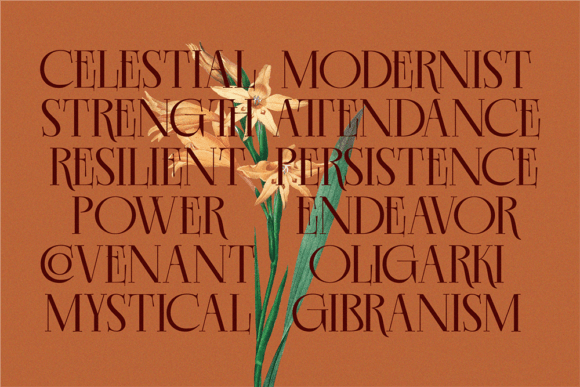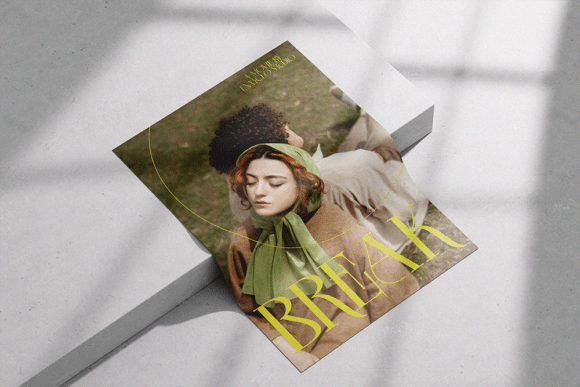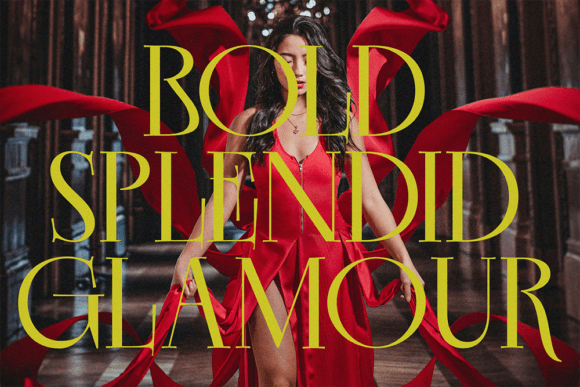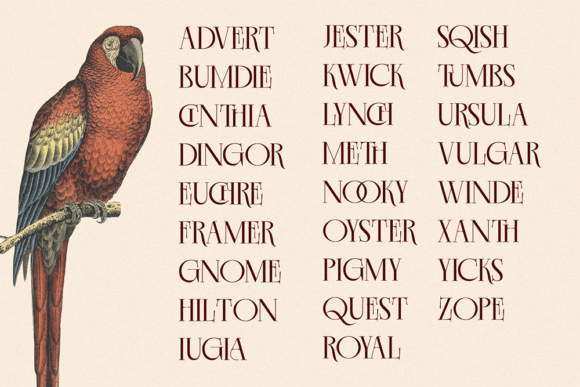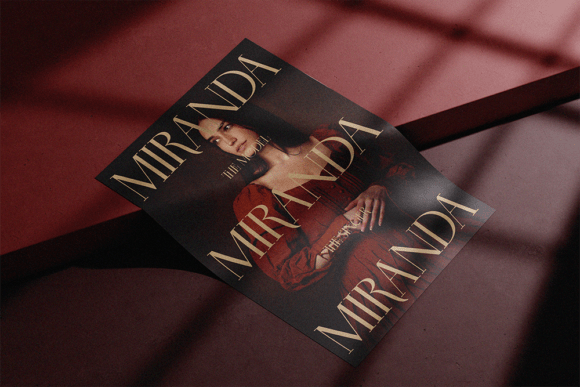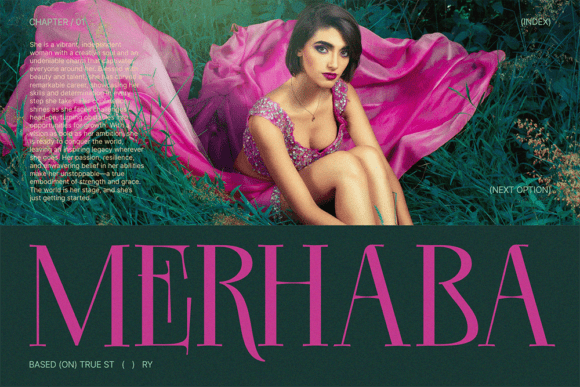
Experience EKGIERO: The Ultimate Serif Typeface for Elegant Branding
In the world of typography, a well-crafted font can make all the difference in elevating a brand’s identity to new heights. Introducing EKGIERO, a stunning serif typeface designed to infuse unforgettable elegance into your brand. With its meticulous attention to detail and state-of-the-art design, EKGIERO is the perfect choice for fashion, beauty, and aesthetics enthusiasts.
Unparalleled Elegance and Versatility
A Comprehensive Character Set
EKGIERO boasts a full suite of uppercase and lowercase letters, numerals, punctuation, symbols, ligatures, and alternates. This extensive character set provides designers with the flexibility to create spectacular typography that is truly unique in its class. Whether you’re working on high-fashion branding, cosmetic and skincare packaging, or luxe editorial designs, EKGIERO has got you covered.
Ideal Applications for EKGIERO
EKGIERO’s aesthetic appeal shines in various applications, including:
- High-fashion branding: Elevate your fashion brand with EKGIERO’s sophisticated and elegant typography.
- Cosmetic and skincare packaging: Make a lasting impression with EKGIERO’s luxurious and refined design.
- Boutique branding: Create a unique and memorable brand identity with EKGIERO’s distinctive serif typeface.
- Luxe editorial designs: Add a touch of sophistication to your editorial projects with EKGIERO’s elegant typography.
- Logos and identity systems: Establish a strong brand presence with EKGIERO’s striking and memorable design.
- Packaging: Elevate your packaging design with EKGIERO’s refined and luxurious typography.
Why Choose EKGIERO?
EKGIERO offers a unique combination of elegance, versatility, and functionality, making it the perfect choice for designers and crafters. Here are just a few reasons why EKGIERO stands out:
- Unparalleled attention to detail: EKGIERO’s meticulous design ensures a level of sophistication and refinement that’s hard to match.
- Comprehensive glyph set: With a wide range of characters, EKGIERO provides the flexibility to create stunning typography.
- Multilingual support: Reach a global audience with EKGIERO’s linguistic versatility.
| Font Name | Ekgiero Font |
| Author | Enxyclo |
EKGIERO is more than just a font – it’s a design experience. With its stunning serif typeface, comprehensive glyph set, and versatile formats, EKGIERO is the ultimate choice for elegant branding. Whether you’re a designer, crafter, or brand enthusiast, EKGIERO is sure to elevate your creative projects to new heights. Experience the power of EKGIERO today and discover a world of unforgettable elegance.